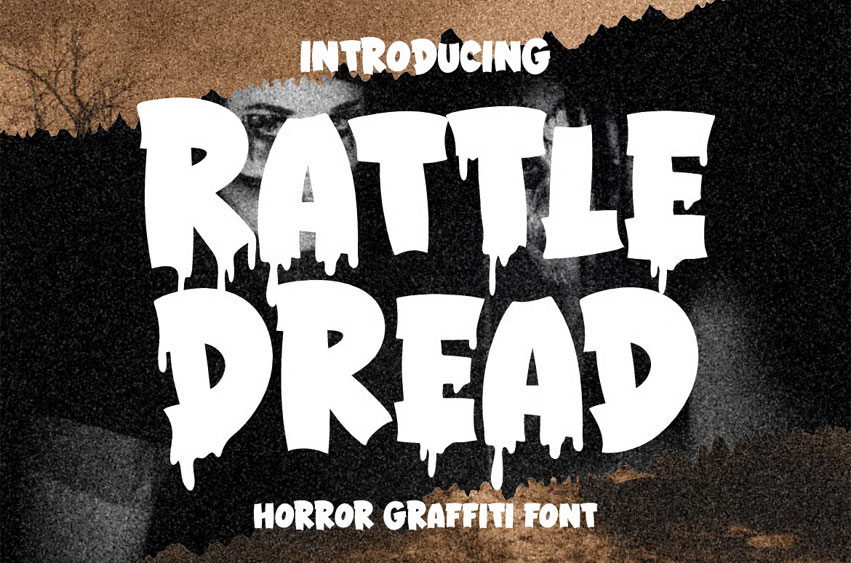
Rattle Dread Font
Rattle Dread Font Step into the shadows with Rattle Dread, a horror graffiti font dripping with street-style terror and Halloween grit. Inspired by the rawness of urban tags and the thrill of ghost stories, this typeface captures the essence of fear sprayed across abandoned walls and haunted alleyways. Its exaggerated drips, sharp cuts, and bold form scream tension, making it perfect for designs that demand a chilling, rebellious presence. The uppercase forms are heavy and uneven, creating a sense of chaos, while the alternate set introduces additional “bleeding” characters for added drama. With gritty texture and eerie balance, this font turns every headline into a scream, every label into a legend.
Whether you’re designing horror movie posters, haunted event flyers, creepy packaging, or dark urban branding, Rattle Dread delivers unmistakable shock value. It’s particularly suited for Halloween themes, escape room identities, streetwear drops, or eerie book covers. Multilingual support, punctuation, and numeric characters ensure that your eerie message reaches every corner of the world. Rattle Dread doesn’t just set the tone—it owns it.